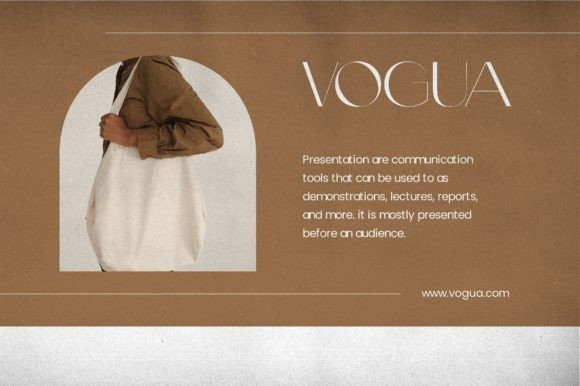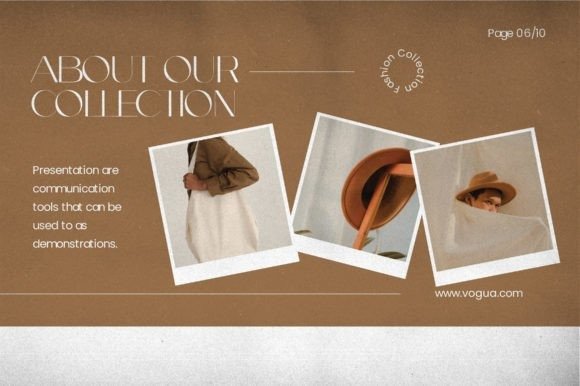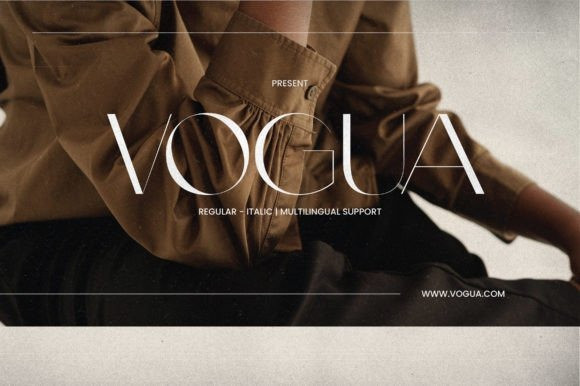
Vogua Font
Vogua Font is a delicate, feminine, and elegant sans-serif typeface. Its simple aspect and perfectly curved construction render it a valid choice when you are designing elegant, luxurious, or feminine stuff. Use it in your creative ideas and notice how much power it holds inside.